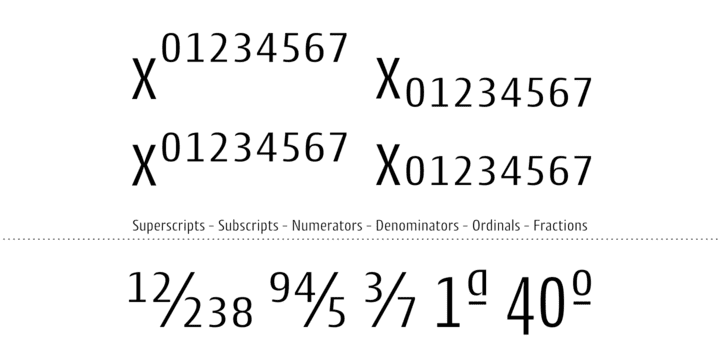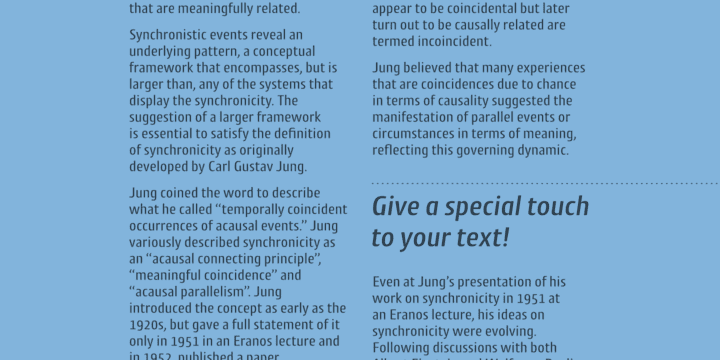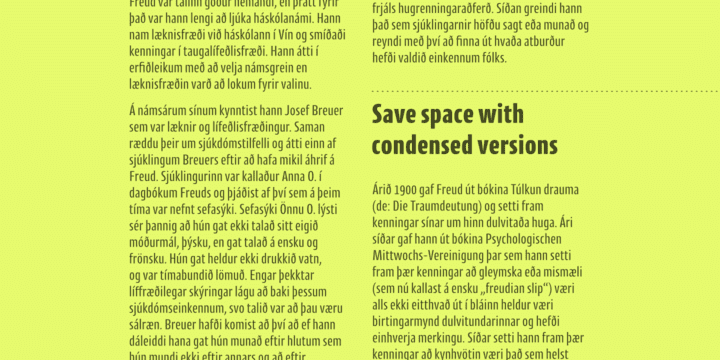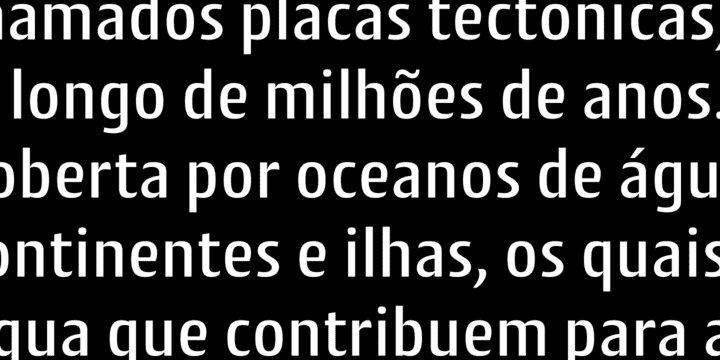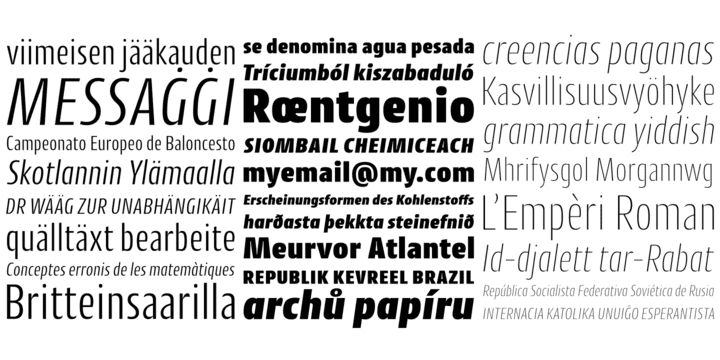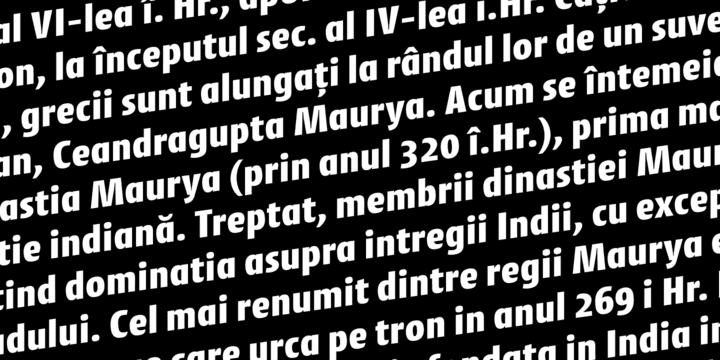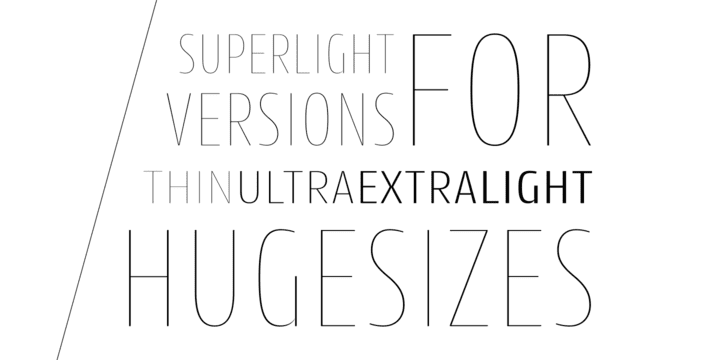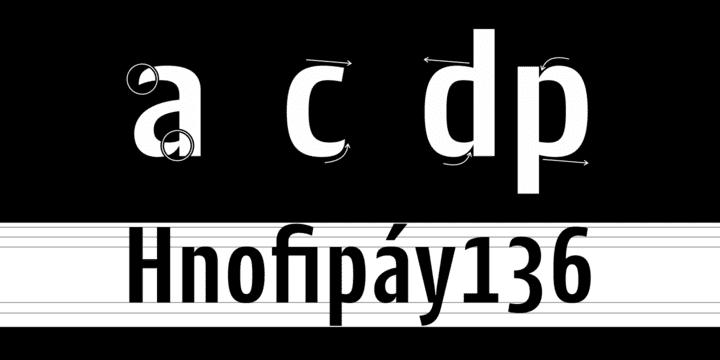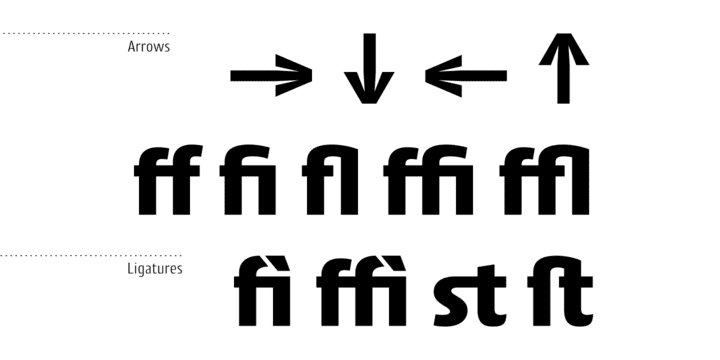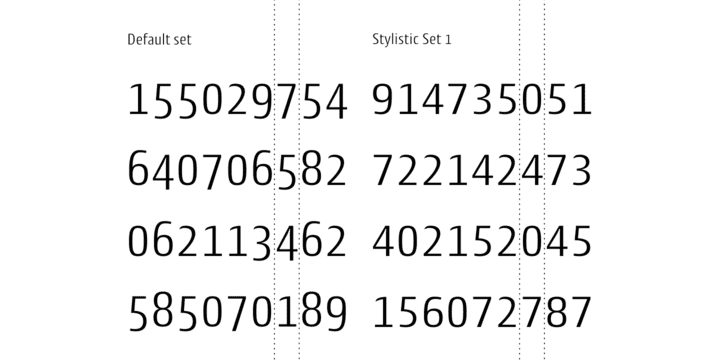
Choose thinner (or thicker) versions for titles, and intermediate versions (normal, medium, etc.) to small sizes. Explore the condensed versions when you need to save space. Use the light versions for special cases in huge sizes. Cantiga intended to be your new "Swiss army knife" sans typeface.
The Cantiga family consists of 2 widths (normal and condensed) with 11 weights each, plus their respective italic versions. The fonts are available in OpenType PS format and have extended character set to support CE, Baltic, Turkish as well as Western European languages.
Ligatures, Discretionary Ligatures, Historical Forms, Alternates, Contextual Alternates, Fractions, Superscript, Subscript